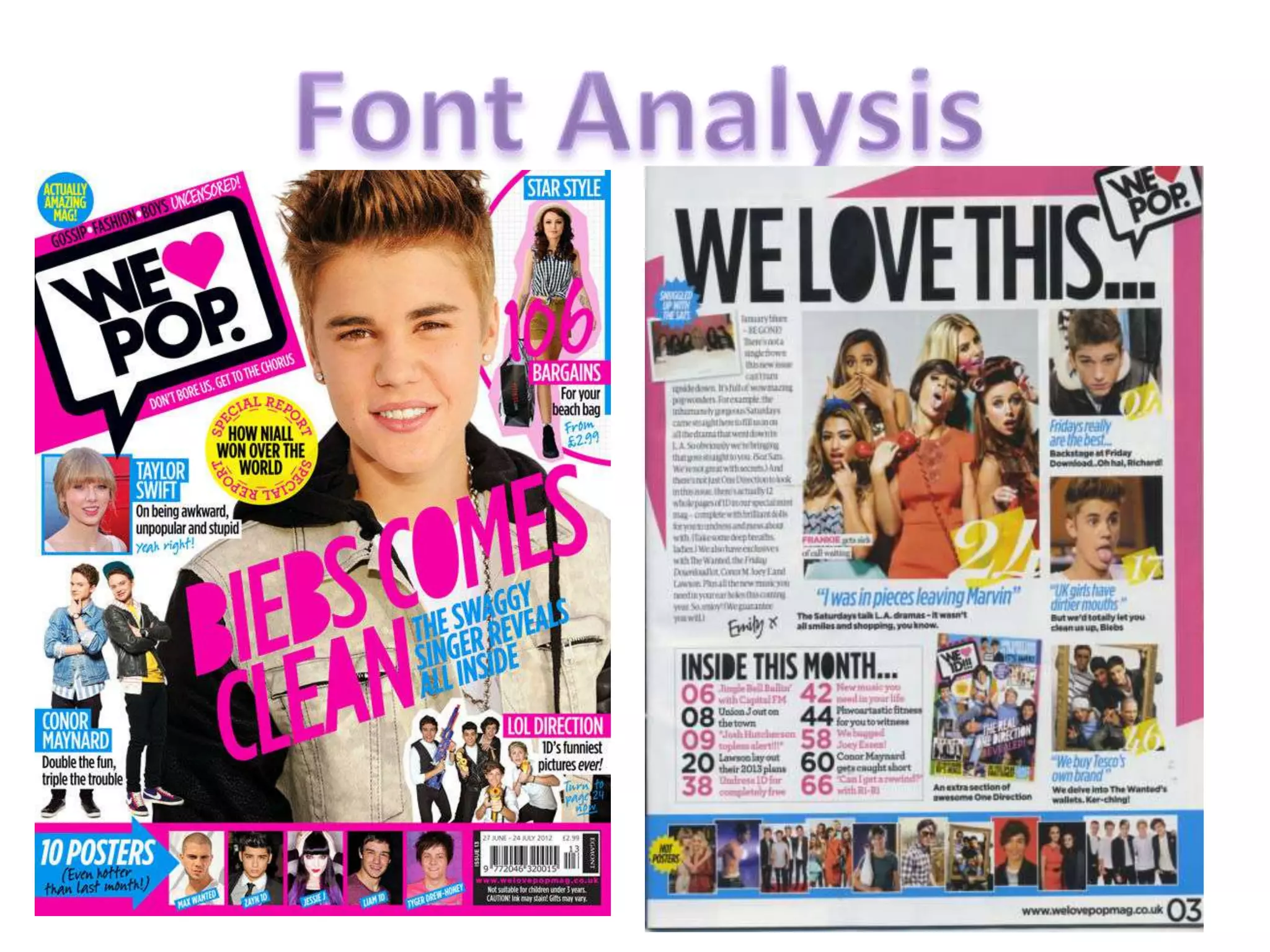
The front cover of We love Pop
uses their signature font
throughout of all the main selllines. This consists of an upper
case font that fills in the gaps
letters such as B and O. This font is
very unique and clearly
recognisable. This allows the
reader to instantly recognise the
font as from We love Pop.
This emphasises the importance
of using a unique signature font
for the main and largest text. This
allows the brand identity to be
clear and evident. It also allows
the reader to link the font with the
magazine and instantly recognise
it as from We love Pop magazine.
The signature font features the
most on the front cover as selllines of pop magazines and the
titles of the articles inside. The
font is unique and recognisable. It
instantly emphasises the
quirkiness and uniqueness of We
Love Pop as a brand.
It is evident from the snippets of a We Love
Pop contents page that the font used is the
same throughout the articles. This allows
the symbiotic link be maintained
throughout the magazine. The font used is
also simple and basic to allow it to be clear
and easily readable. The signature font is
also featured in this contents page but not
as much as on the front cover. This again
allows the symbiotic link to be maintained
and allows the contents page to be easily
recognised by the target audience.
It is clear that pop magazines use a
signature font for their main sell-lines and
headings to make the overall magazine
easily recognisable. Also, that the main
body of text in the magazine uses the a
simple and easy-to-read font that features
throughout the magazine. These fonts
allows the magazine to draw in the TA
when they see the fonts as they know the
articles will be easy to read and wont be
put off by the amount of text.
From analysing the fonts from We Love Pop, it is
clear that pop magazines pick fun, feminine yet
simple texts that are easy for the target audience to
read. Therefore, I am going to use a simple as clear
font for the main text throughout my three pieces. I
will also pick a suitable font from Dafont.com that is
unique and will be easily recognisable to the Target
Audience. This will be used as the magazines
signature font and will help add to the overall
personality and Brand Identity of the magazine.
These three font styles are my final three options
for the masthead of my magazine. Each font is
unique and different and will stand out on my
front cover and emphasise the magazines brand
identity. However, I think the 1st option will
appeal more to the target audience as it is bright
and eye-catching. By putting the pink on black
rather than black on pink it makes the masthead
stand out more and will be instantly recognisable
to the TA. It is more visually appealing to the TA
and will instantly catch their eye on the magazine
stands. The main font is called Cheri. This will be
the signature font used in my magazine. It will be
used for the masthead, main sell-lines and article
headings. I chose this font because it is
fun, quirky, girly and unique like my magazine. This
font successfully emphasises the style and
personality of my magazine. This font, like We
Love Pop is very unique and will be instantly
recognisable to the TA. It also emphasises that
Ultimately Pop has its own individual style and
brand identity. It also shows the fact that
Ultimately Pop is aimed at females as it is a very
girly font. The colours I chose for my masthead
connote fun and femininity.